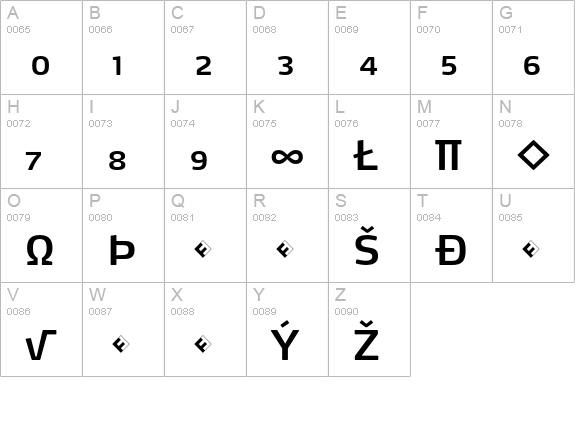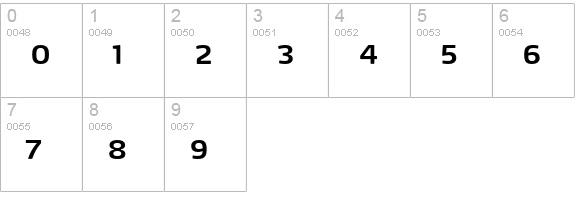
Max-SemiBoldExpert is a versatile and modern font that strikes the perfect balance between boldness and elegance. With its clean lines and strong presence, this font is ideal for a wide range of design projects, from branding to editorial design. The semi-bold weight adds a touch of sophistication, making it a great choice for headlines, titles, and other display purposes. What sets Max-SemiBoldExpert apart is that it is available for free download at FontsMarket.com, allowing designers and creatives to access this high-quality font without any cost. Whether you are working on a personal project or a client's design, Max-SemiBoldExpert offers a reliable and stylish option that will elevate your work to the next level. Download this font today and add a touch of modern sophistication to your design projects.